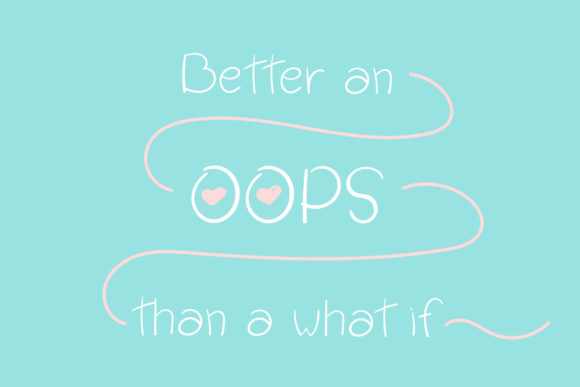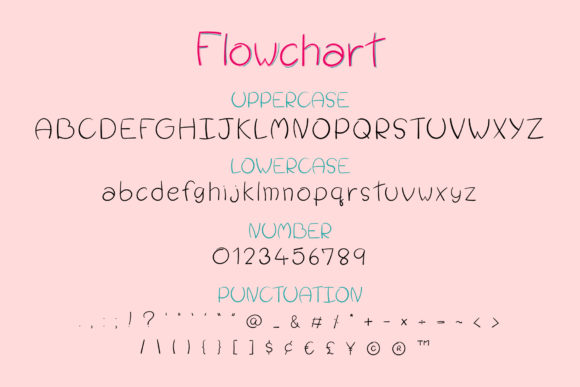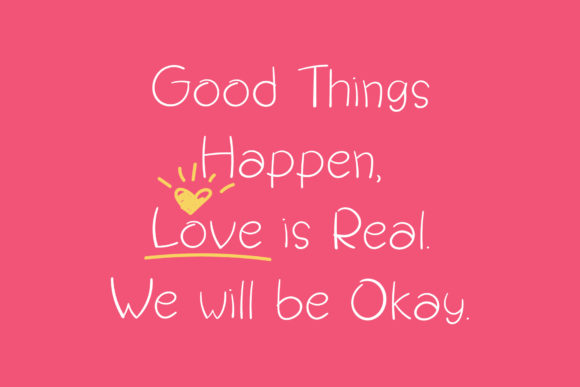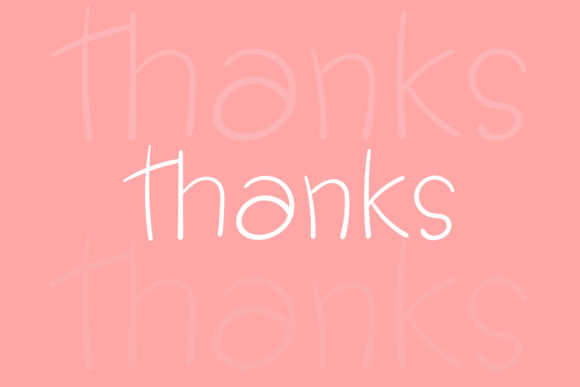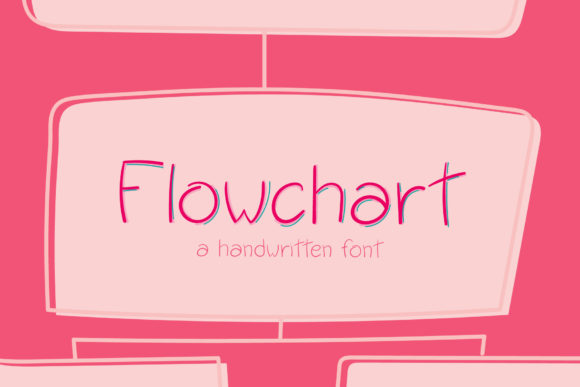
Introducing Flowchart Font: The Perfect Blend of Fun and Clean Design
Are you tired of using the same old fonts for your design projects? Look no further than Flowchart Font, a casual, fun handwritten font that’s perfect for adding a touch of personality to your logos, branding, social media, and DIY projects. With its clean and quirky design, Flowchart Font is sure to make your projects stand out from the crowd.
What is Flowchart Font?
Flowchart Font is a unique and versatile font that’s designed to add a touch of whimsy to your designs. Its clean and handwritten design makes it perfect for a wide range of projects, from logos and branding to social media graphics and crafty DIY projects. Whether you’re a designer, crafter, or simply someone who loves to get creative, Flowchart Font is the perfect choice.
Key Features of Flowchart Font
- Clean and Quirky Design: Flowchart Font has a clean and quirky design that’s perfect for adding a touch of personality to your projects.
- Handwritten Style: With its handwritten style, Flowchart Font adds a touch of warmth and personality to your designs.
- Versatile: Flowchart Font is perfect for a wide range of projects, from logos and branding to social media graphics and crafty DIY projects.
- Easy to Read: Despite its quirky design, Flowchart Font is easy to read and understand, making it perfect for use in a variety of contexts.
Uses for Flowchart Font
Flowchart Font is a versatile font that can be used in a wide range of projects, including:
- Logos and Branding: Use Flowchart Font to create unique and memorable logos and branding materials.
- Social Media Graphics: Add a touch of personality to your social media graphics with Flowchart Font.
- Crafty DIY Projects: Flowchart Font is perfect for use in crafty DIY projects, such as scrapbooking, card making, and more.
- Invitations and Announcements: Use Flowchart Font to create unique and eye-catching invitations and announcements.
Why Choose Flowchart Font?
There are many reasons why Flowchart Font is the perfect choice for your design projects. Here are just a few:
- Unique Design: Flowchart Font has a unique and quirky design that’s sure to make your projects stand out.
- High-Quality: Flowchart Font is a high-quality font that’s designed to produce crisp and clear results.
Tips for Using Flowchart Font
Here are a few tips for using Flowchart Font in your design projects:
- Use it with a Bold Font: Pair Flowchart Font with a bold font for a striking contrast.
- Experiment with Colors: Flowchart Font looks great in a variety of colors, so don’t be afraid to experiment.
- Use it for Headings: Flowchart Font is perfect for use in headings and titles.
- Add a Personal Touch: Use Flowchart Font to add a personal touch to your designs.
Flowchart Font is a unique and versatile font that’s perfect for adding a touch of personality to your design projects. With its clean and quirky design, Flowchart Font is sure to make your projects stand out from the crowd. Whether you’re a designer, crafter, or simply someone who loves to get creative, Flowchart Font is the perfect choice.